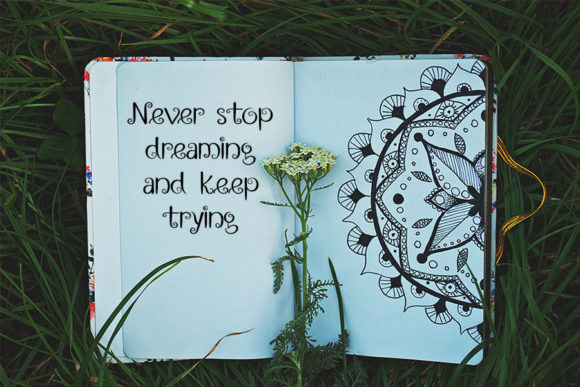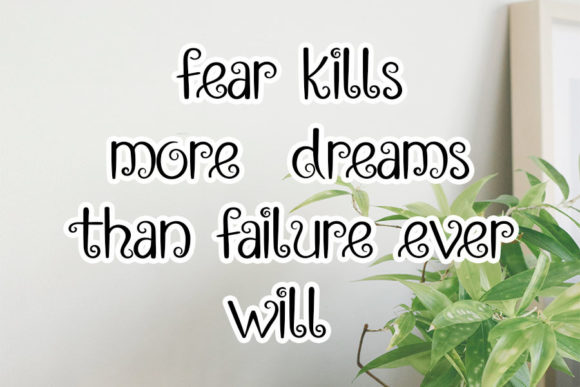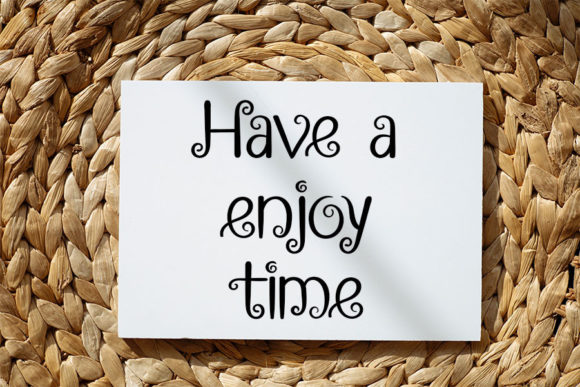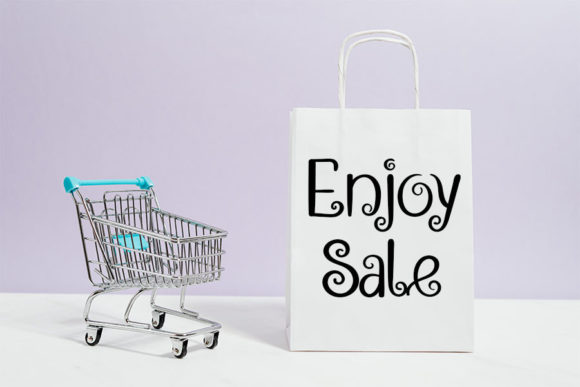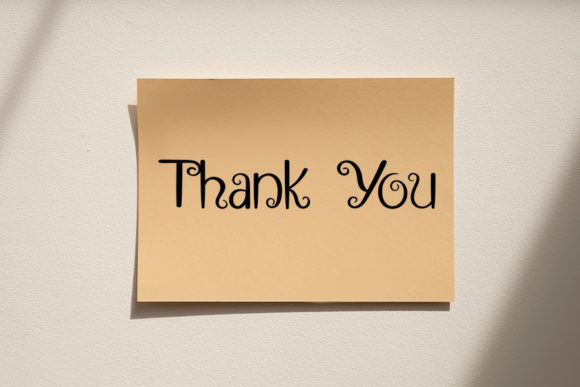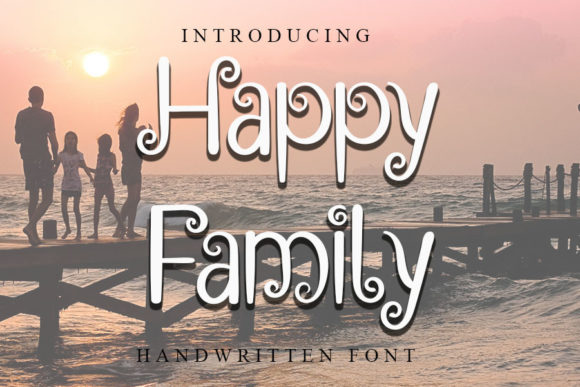
Introducing Happy Family Font: The Perfect Choice for Romantic and Personalized Designs
Are you a designer or crafter looking for a font that can add a touch of romance and personality to your designs? Look no further than Happy Family Font! This beautiful, slim, and delicate handwritten font is perfect for creating wedding invitations, cards, and other designs that require a special and personalized touch.
What Makes Happy Family Font So Special?
Happy Family Font is a unique and charming font that is sure to capture the hearts of anyone who sees it. Its dainty and joyful appearance makes it an ideal choice for designers and crafters who want to create beautiful and eye-catching designs. Whether you’re working on a wedding invitation, a greeting card, or any other project that requires a personal touch, Happy Family Font is the perfect choice.
Characteristics of Happy Family Font
So, what makes Happy Family Font so special? Here are some of its key characteristics:
• Slim and delicate: Happy Family Font is a slim and delicate font that is perfect for creating elegant and sophisticated designs.
• Handwritten: This font has a beautiful, handwritten appearance that gives it a personal and unique touch.
• Dainty and joyful: Happy Family Font is a dainty and joyful font that is sure to bring a smile to anyone’s face.
• Romantic: This font is perfect for creating romantic designs, such as wedding invitations and love letters.
Uses for Happy Family Font
Happy Family Font is a versatile font that can be used for a variety of design projects. Here are some of the most popular uses for this beautiful font:
• Wedding invitations: Happy Family Font is perfect for creating beautiful and elegant wedding invitations that will set the tone for the big day.
• Greeting cards: This font is also great for creating greeting cards for special occasions, such as birthdays, anniversaries, and holidays.
• Personalized gifts: Happy Family Font can be used to create personalized gifts, such as customized mugs, t-shirts, and tote bags.
• Stationery: This font is perfect for creating beautiful and elegant stationery, such as letterheads, notecards, and journals.
Tips for Using Happy Family Font
Here are some tips for using Happy Family Font in your designs:
• Pair it with other fonts: Happy Family Font looks great when paired with other fonts, such as bold and sans-serif fonts.
• Use it for headings and titles: This font is perfect for creating beautiful and elegant headings and titles.
• Add some embellishments: Happy Family Font can be paired with embellishments, such as flowers and lace, to create a more romantic and feminine look.
In conclusion, Happy Family Font is a beautiful and charming font that is perfect for designers and crafters who want to create romantic and personalized designs. Its slim and delicate appearance, combined with its handwritten and dainty feel, make it an ideal choice for a variety of design projects. Whether you’re working on a wedding invitation, a greeting card, or any other project that requires a special touch, Happy Family Font is the perfect choice.